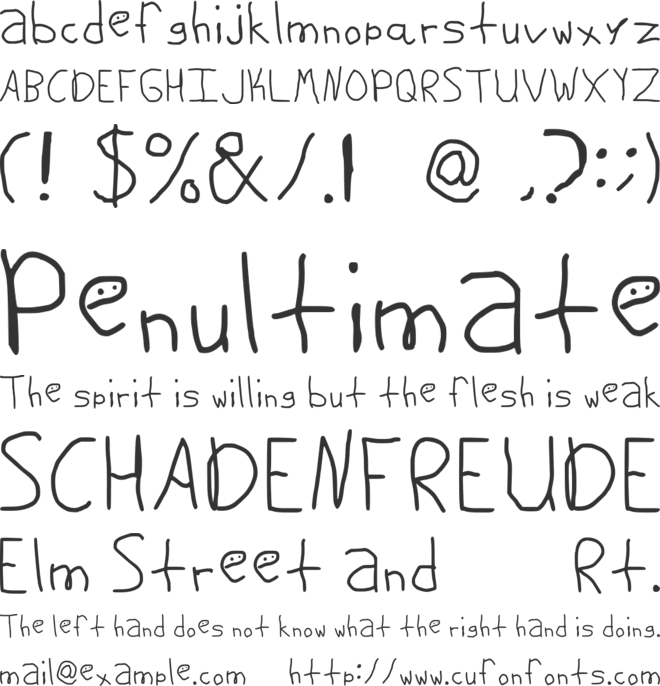
Noobpaint Font
Have you ever wanted a font that looks like the scrawlings of an insane person? Or the manifesto of a high two year old? If yes, then I have the font for you!
Using our technologically-advanced Microsoft Paint program, we have quite possibly made the best font in existence. And whats better, it's free to use! your welcome.